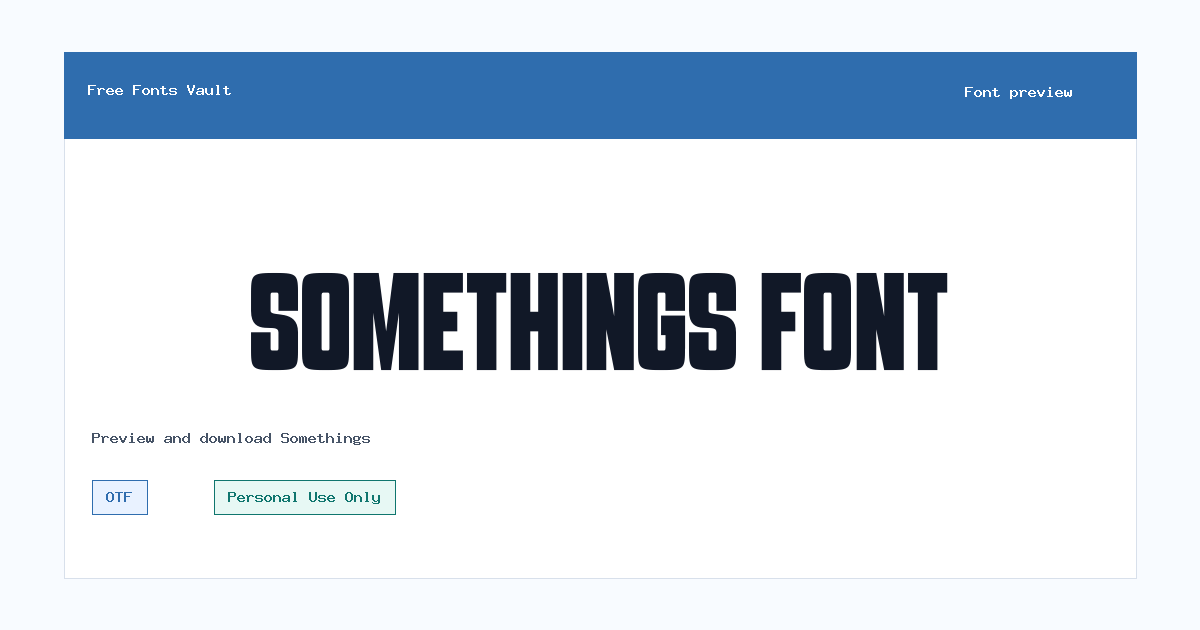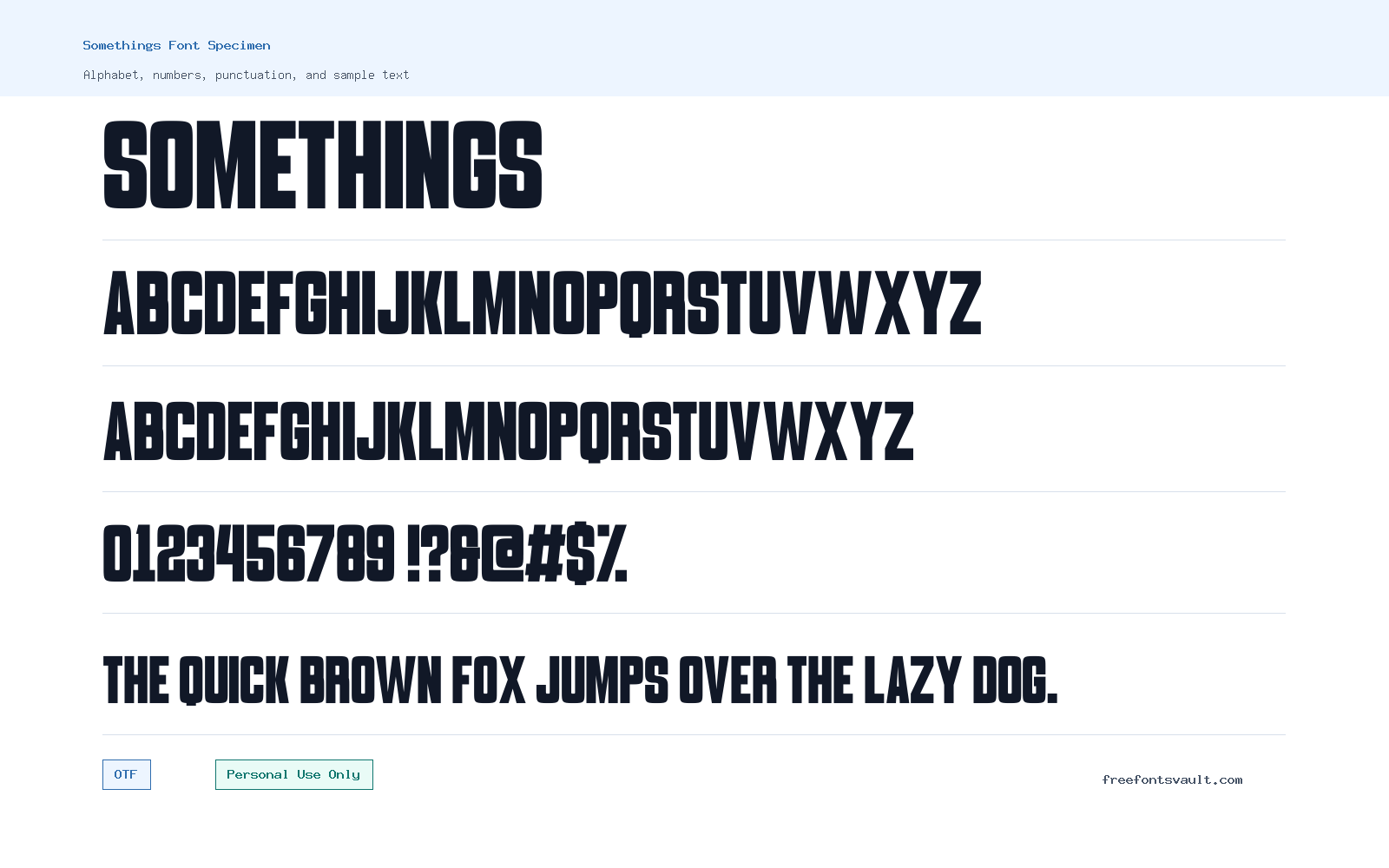
Somethings
- Designer Muhammad Rizki Utomo
Somethings is a sans serif font by Muhammad Rizki Utomo, offered in an OTF regular style for personal-use projects. It is a good font to test when you need clean lettering for display work, mockups, and short design text.
Somethings is presented as a sans serif font, so visitors should expect a cleaner letter structure rather than a script, blackletter, or decorative handwriting style. The available file is an OTF font in a regular style, which makes it easy to install on most desktop design setups and test in common apps such as Photoshop, Illustrator, Figma, Canva, Affinity Designer, or word-processing software that supports custom fonts. Because only one regular variant is listed, the font is best approached as a display or headline option rather than a full text family with many weights. Use the preview box to check how its spacing, lowercase letters, capitals, numbers, and punctuation behave before choosing it for a finished layout.
For practical design work, Somethings is most useful in short pieces of text: logo drafts, poster headings, social graphics, packaging mockups, website hero titles, quote cards, labels, and brand concept boards. If you are testing it for logo work, try the exact brand name in uppercase, lowercase, and title case. A font can feel very different depending on the letter mix, especially when a word contains repeated letters, narrow characters, or wide characters. For posters and web mockups, test it at the actual size you plan to use. A typeface that looks clear in a large title may not work as well in small captions, menu labels, or long paragraphs. Since Somethings is listed with a personal-use-only license, treat it as a trial or non-commercial design font unless you obtain the proper permission for commercial work.
- Sans serif style suited to clean display text, headings, and design mockups
- Useful for short text settings where the font’s shape and spacing can be judged quickly
- Works best when paired with a plain, readable companion font for body copy
- Logo concepts and brand-name previews
- Website hero headings and landing page mockups
- Social media quote cards, banners, and thumbnails
- Packaging, label, and sticker design drafts
- Personal invitations, mood boards, and non-commercial creative projects
What type of font is Somethings?
Somethings is listed as a sans serif font. It is best tested for clean display text, headings, logo drafts, and short design layouts.
Who designed Somethings?
The designer is listed as Muhammad Rizki Utomo.
Is Somethings good for body text?
It is safer to use Somethings for short text first. Since only a regular style is listed, test readability carefully before using it in longer paragraphs.
What should I pair with Somethings?
Pair it with a simple, readable font for body copy. A neutral sans serif is a safe choice for web mockups, while a restrained serif can add contrast in posters or editorial-style layouts.